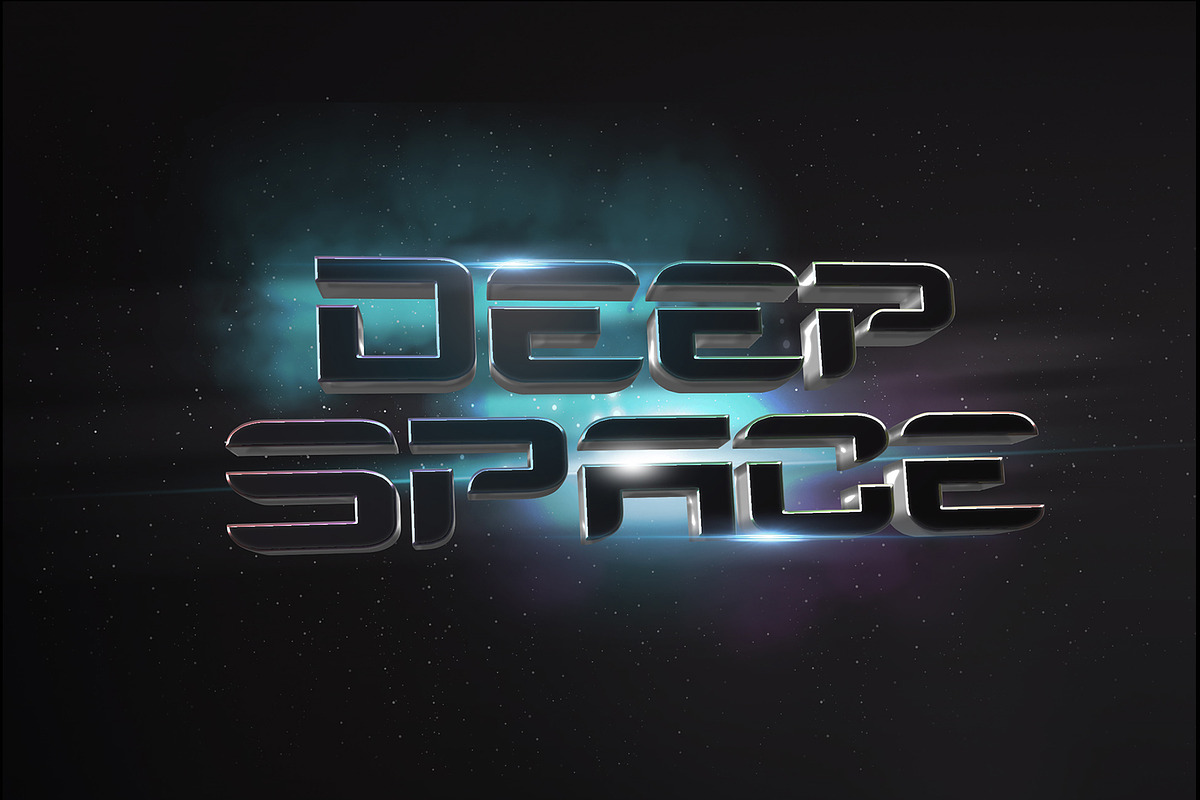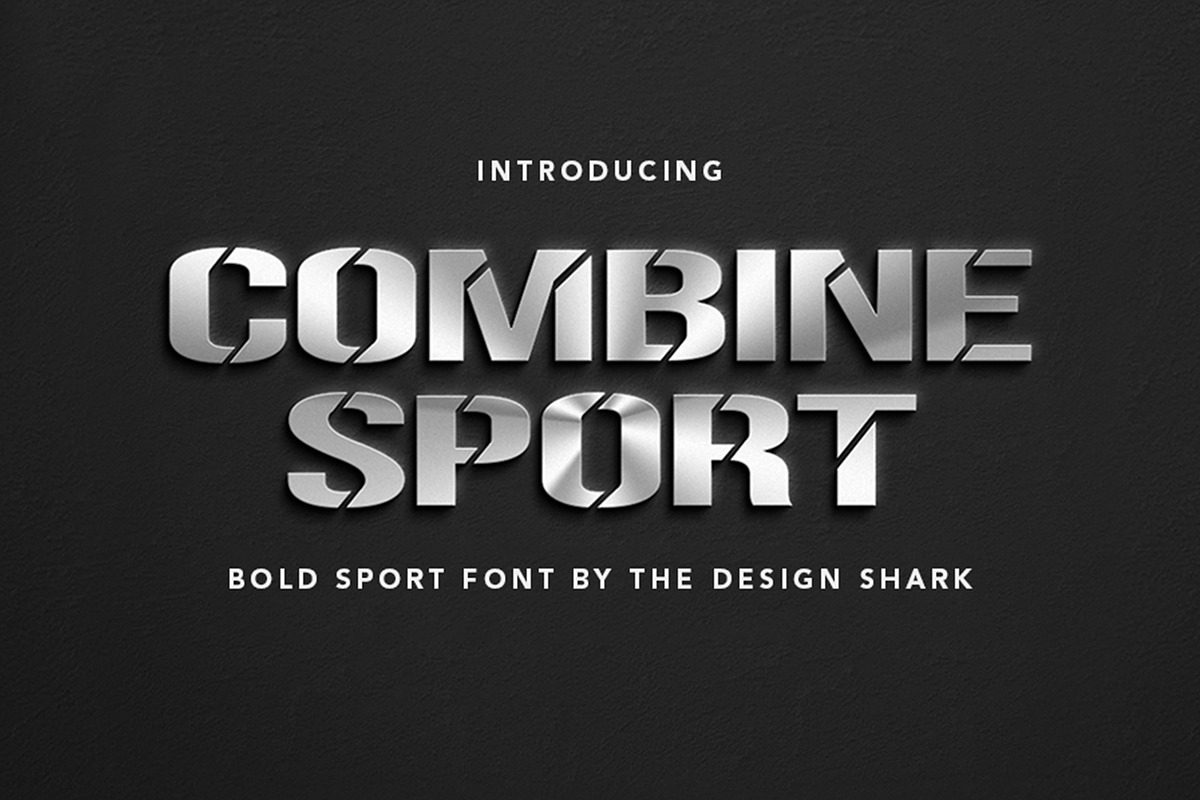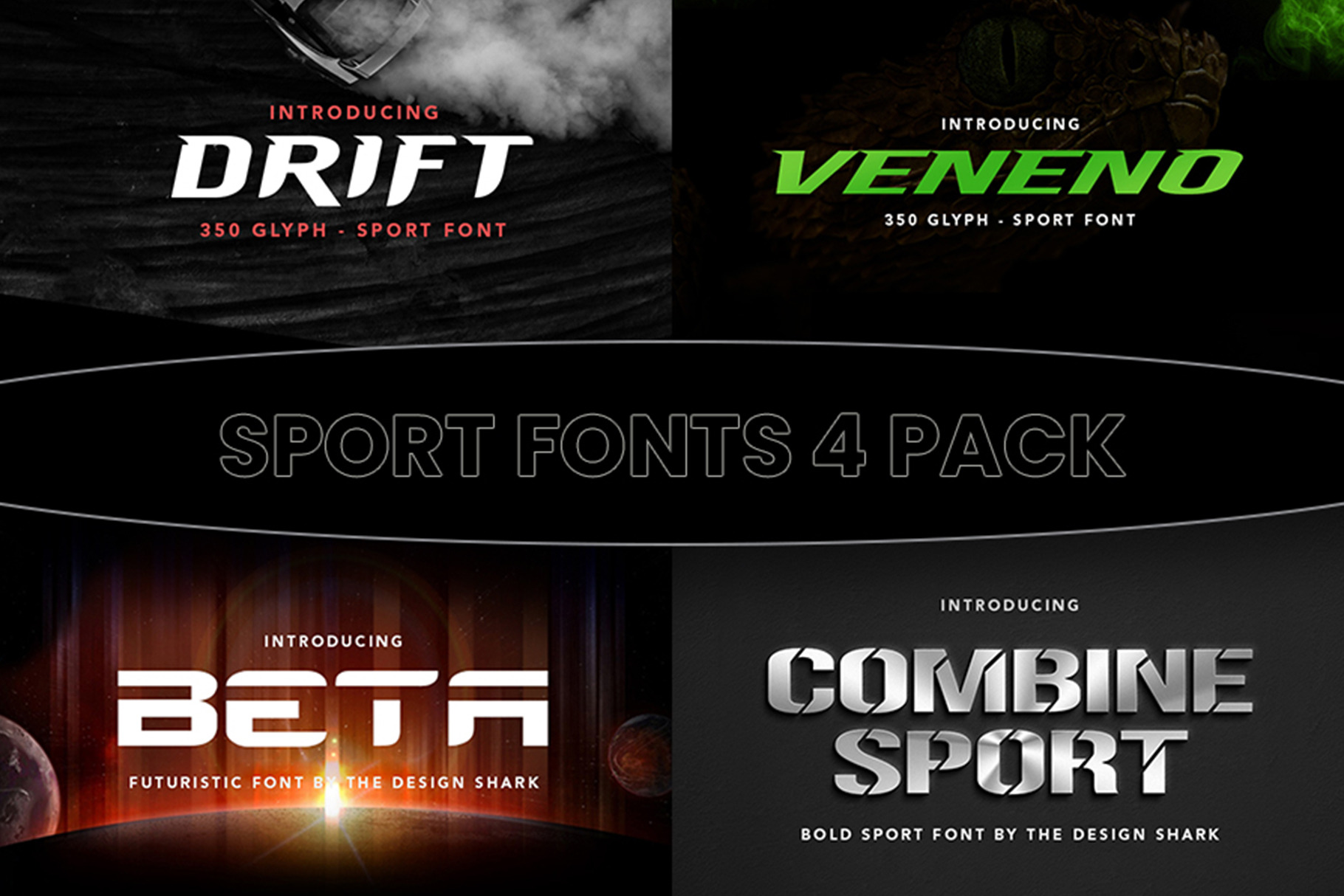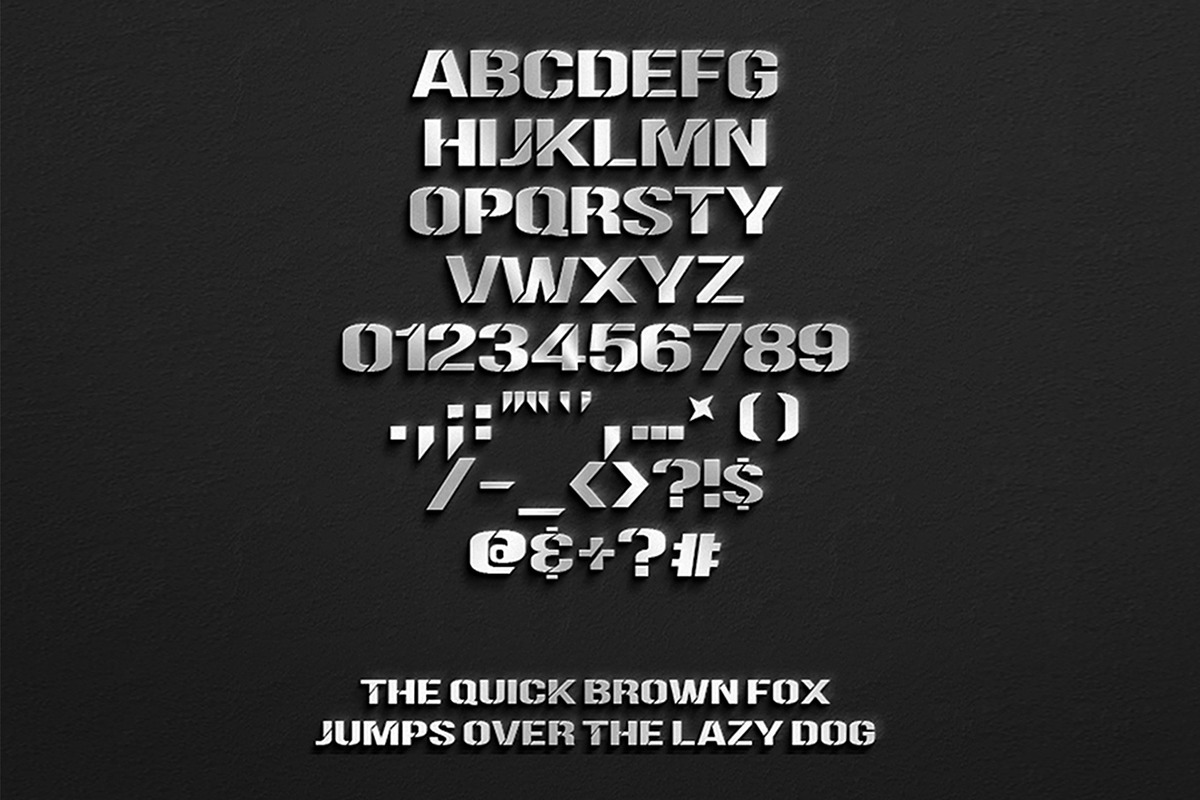
Sport Font 4 Pack
The best sport font bundle online.
This font bundle consists of 4 custom sport typefaces. These fonts are created to be versatile and perfect for any design (Logo Design, Sports Design, Team Brand Identities, Video Editing, Jersey Design, Flyers, Posters, Headlines, Performance Products, etc.)